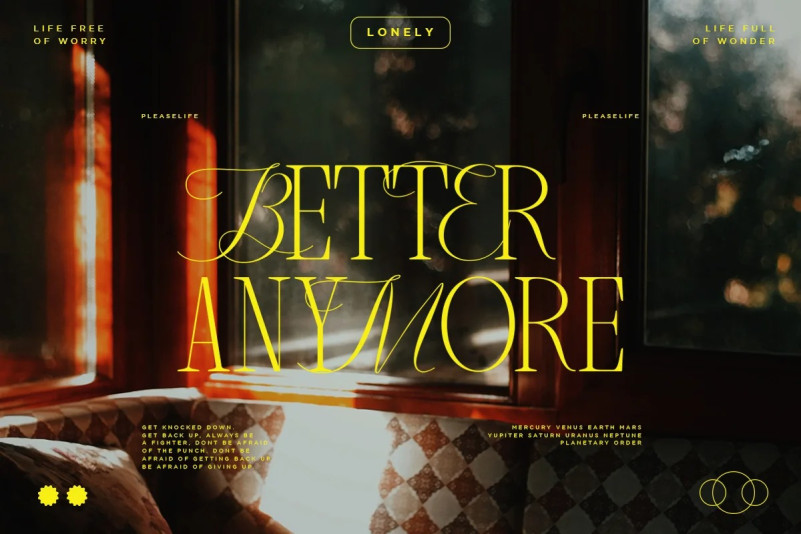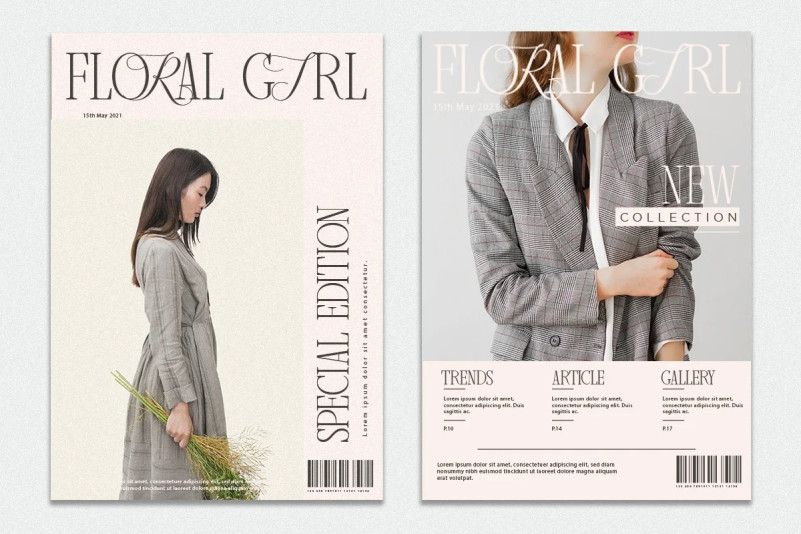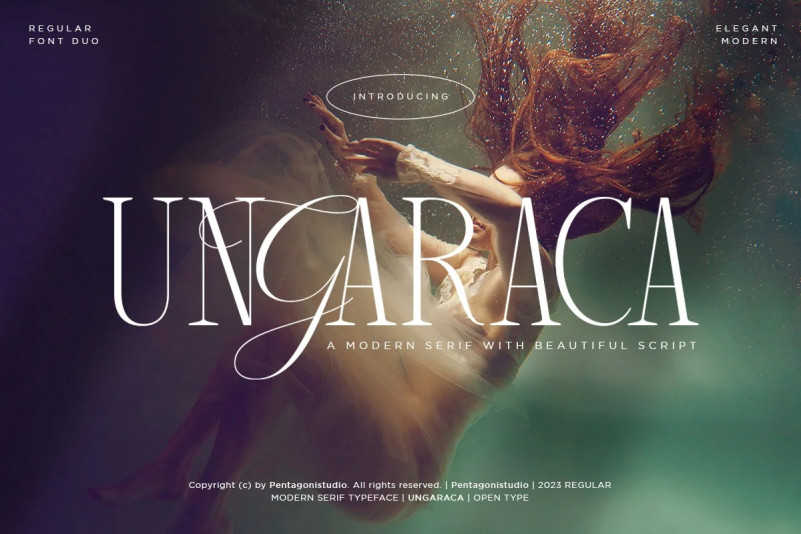
Ungaraca Font
It’s time to see our impressive font,Ungaraca Font is a modern duo inspired by Serif and Script Style. It can easily be matched to an incredibly large set of projects, so add it to your creative ideas and notice how it makes them stand out!